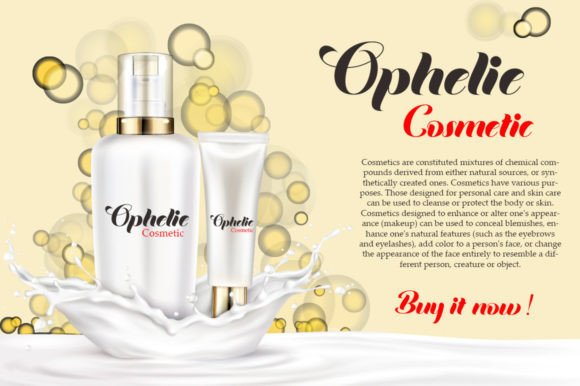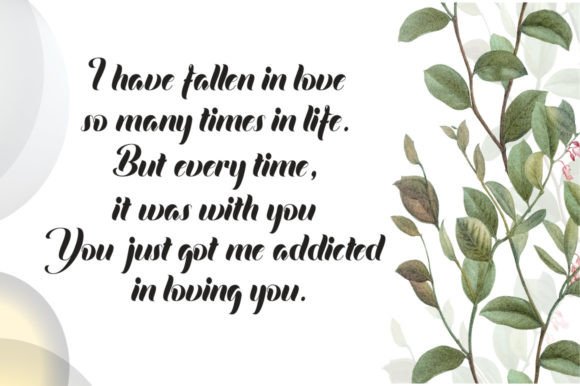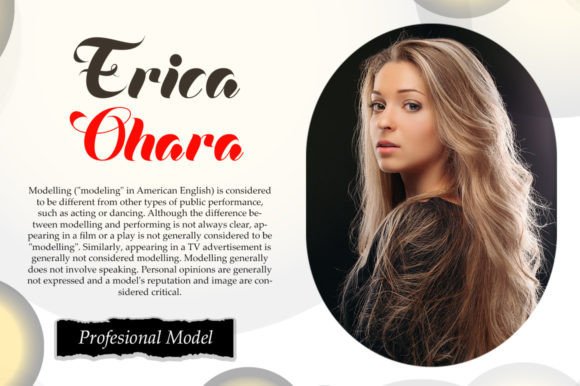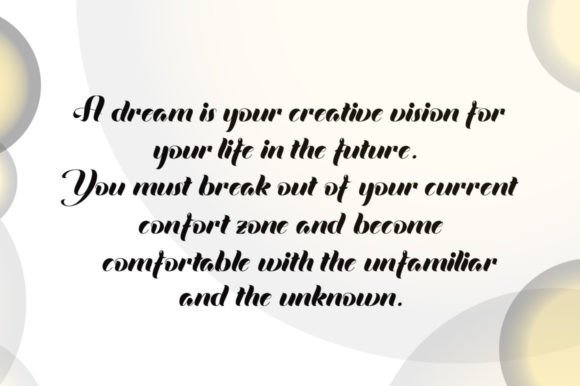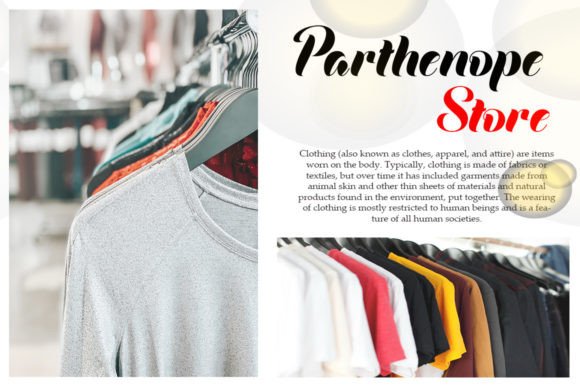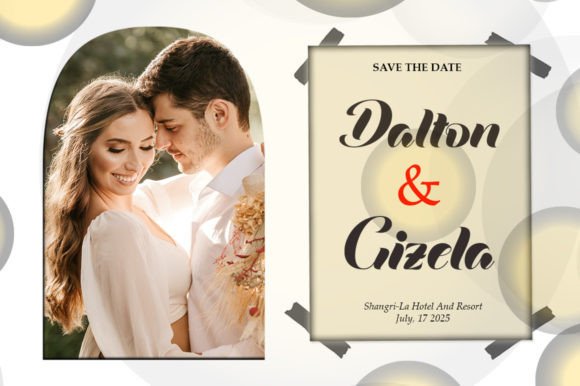
Introduction to Hachiru Font
Have you ever been stuck in a creative project, desperately searching for the perfect font to give it that extra oomph? I’m sure many designers can relate to this frustrating moment. But what if I told you that there’s a game-changing font that can elevate your designs to the next level?
Meet the Hachiru Font, a modern script handwriting font that’s sure to make a statement in any design concept. With its high-quality design and versatility, this font is a must-have for any designer looking to add a personal touch to their work. Whether you’re working on a colorful background or a minimalist design, the Hachiru Font is the perfect design resource to take your project to the next level.
Not only is the Hachiru Font visually stunning, but it’s also free to download and comes with a transparent background, making it easy to integrate into your design. In this article, we’ll dive deeper into the world of Hachiru Font and explore why it’s a valuable addition to any designer’s toolkit.
Key Features of Hachiru Font
- High-quality design resource ideal for creative projects requiring a unique and stylish touch.
- Unique, cursive script style with subtle flair, adding a touch of elegance to any design project.
Honest Review: Hachiru Font
I recently came across the Hachiru Font, and I must say it’s a great addition to my design resource library. This font is perfect for those creative projects that require a unique touch.
What works well about the Hachiru Font is its high quality and versatility. It’s available for free download, making it an excellent choice for designers on a budget. The font’s transparent background also allows for seamless integration with other design elements.
- ✨ High-quality font with a unique touch
- ✨ Versatile and suitable for various creative projects
- ⚠️ Limited font styles and variations
- ⚠️ May not be suitable for formal or professional applications
Overall, I’m impressed with the Hachiru Font. While it may not be perfect, it’s a great design resource for those looking for a unique and high-quality font. I’d definitely recommend it for personal or creative projects.
Tips for Getting the Most Out of Hachiru Font
For the best results, use Hachiru Font in conjunction with other high-quality design resources. Experiment with different font sizes, colors, and layouts to create visually appealing designs.
Common Use Cases for Hachiru Font
Hachiru Font is ideal for a variety of creative projects, including logos, business cards, social media graphics, and more. Its transparent background makes it perfect for overlaying on images or videos.